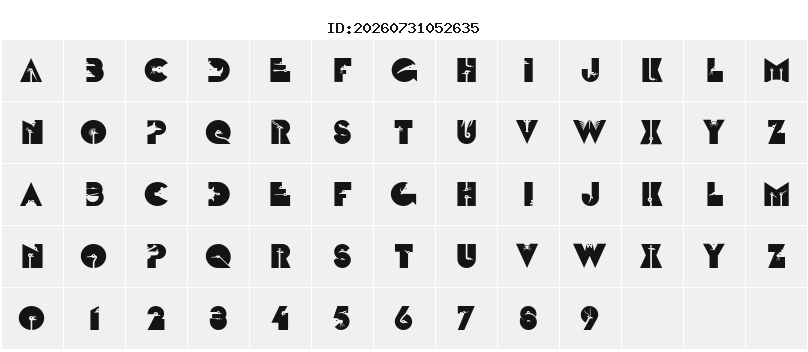
LTZootype Alternate Preview
• Font Name: LTZootype Alternate
• Full Font Name: LinotypeZootype Alternate
About LTZootype Alternate.ttf
LTZootype Alternate.ttf is a modern, elegant sans-serif font designed for ultimate readability and visual harmony. Perfect for branding, headlines, web design, and print materials.